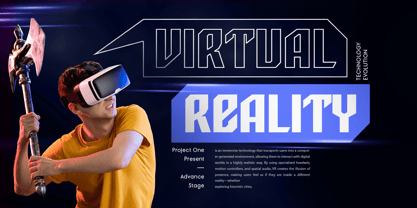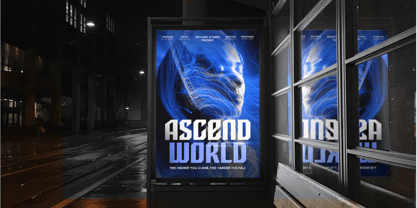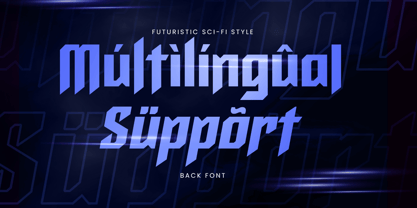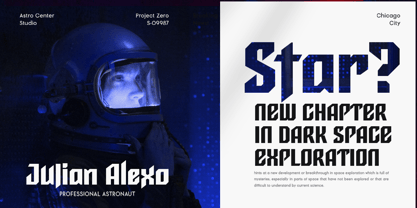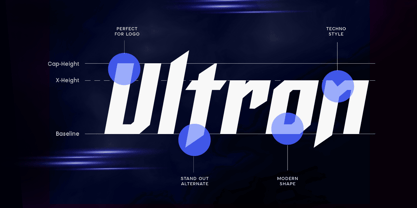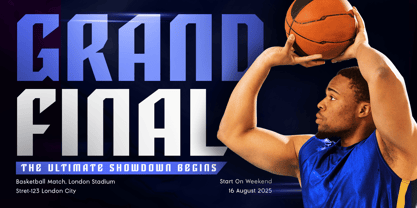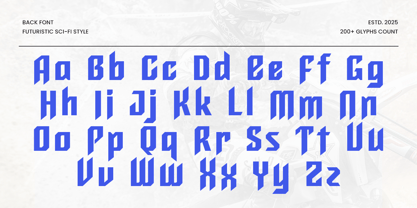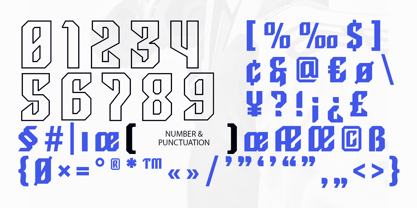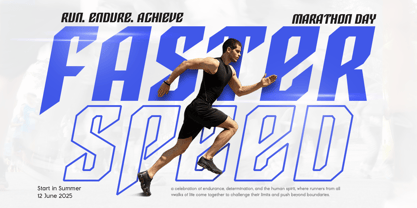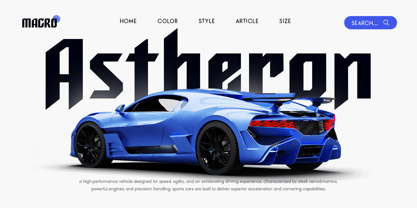
Back
by Dareco Studio
The Back Font Family was designed by Kusnidah Marpuah and published by Dareco Studio. Back contains 4 styles and family package options. More about this family
BACK is a futuristic sci-fi font crafted to bring a bold and innovative edge to your designs. With sleek and modern letterforms, BACK is perfect for: Tech branding Gaming titles Futuristic posters Digital projects Inspired by cyber design and high-tech visuals, this font combines clarity with a strong futuristic presence. It’s ideal for impactful logos, UI designs, and modern display use. Whether you’re working on digital branding or sci-fi themed creative work, BACK ensures your design stands out with style. Font Features: Sleek, futuristic letterforms with a sci-fi edge Perfect for gaming, technology, and modern branding Includes uppercase, lowercase, numerals, and punctuation Bold, innovative design suitable for digital and print projects OpenType features for advanced typographic flexibility Multilingual Support: Supports characters for a wide range of languages including: Afrikaans, Albanian, Asu, Basque, Bemba, Bena, Breton, Chiga, Cornish, Dutch, English, Estonian, Filipino, Finnish, Friulian, Galician, German, Gusii, Indonesian, Irish, Italian, Kabuverdianu, Kalenjin, Kinyarwanda, Luo, Luxembourgish, Luyia, Machame, Makhuwa-Meetto, Makonde, Malagasy, Manx, Morisyen, North Ndebele, Nyankole, Oromo, Portuguese, Quechua, Romansh, Rombo, Rundi, Rwa, Samburu, Sango, Sangu, Scottish Gaelic, Sena, Shambala, Shona, Soga, Somali, Spanish, Swahili, Swedish, Swiss, and more. Step into the future with BACK – the ultimate font for sci-fi, gaming, and modern tech branding. ✨
Designers: Kusnidah Marpuah
Current Foundry: Dareco Studio